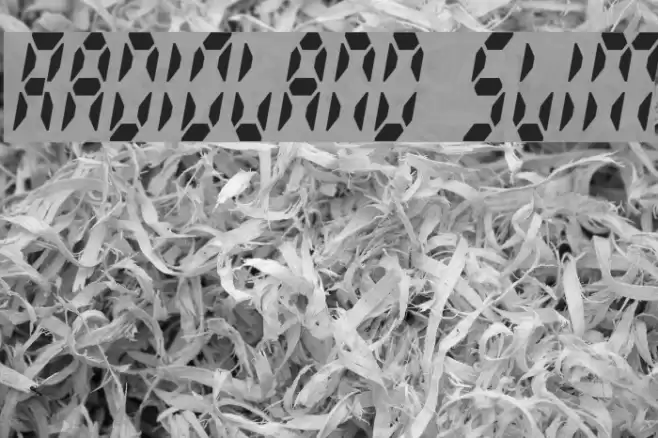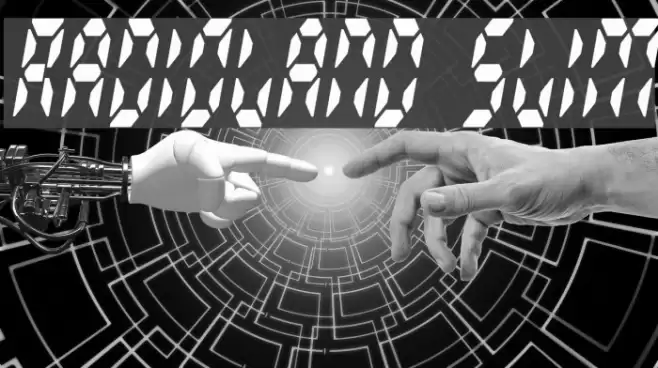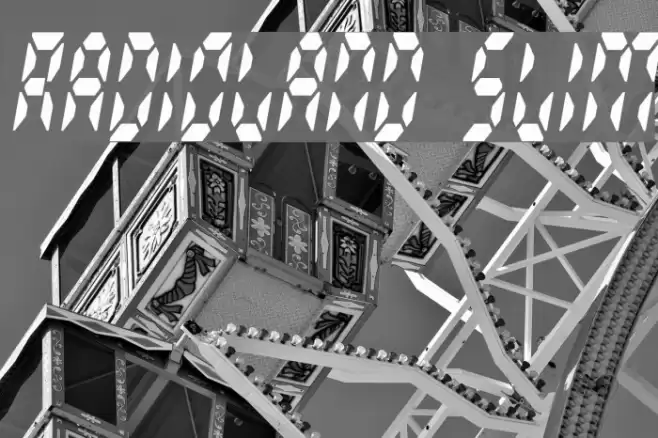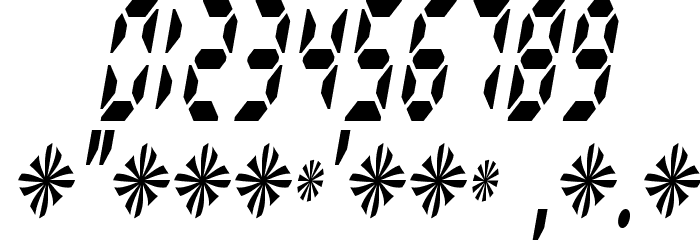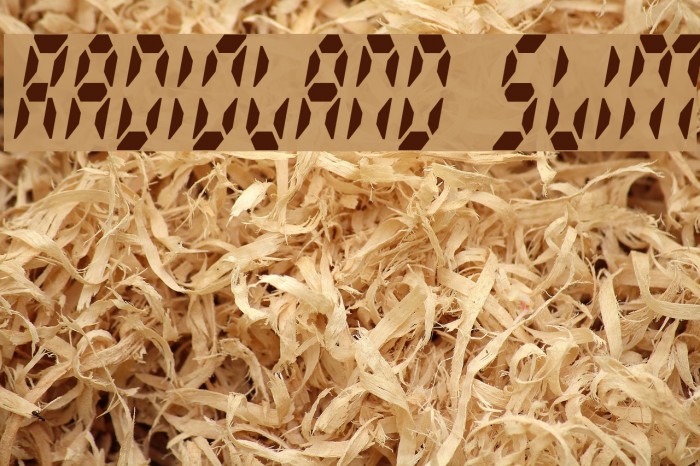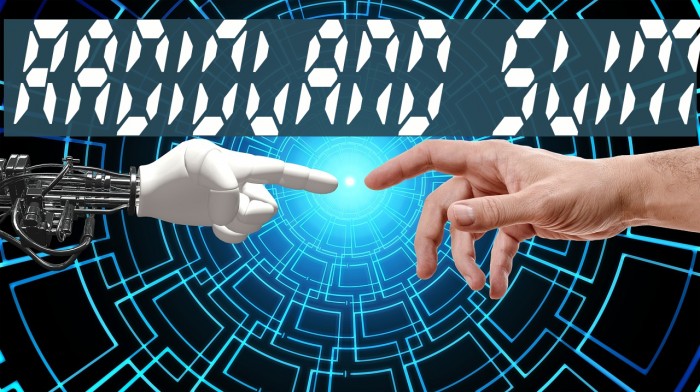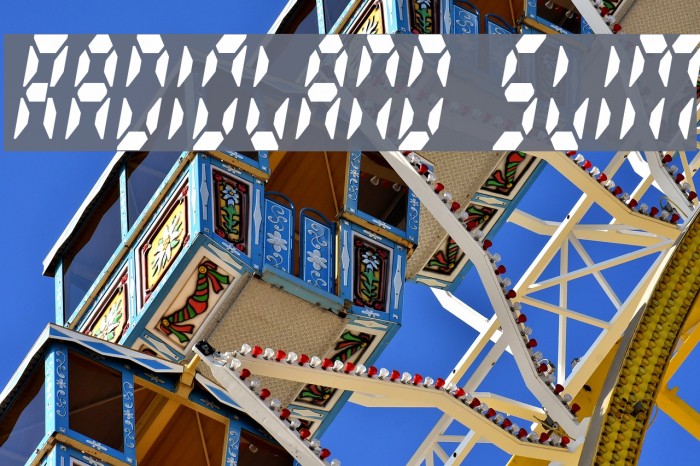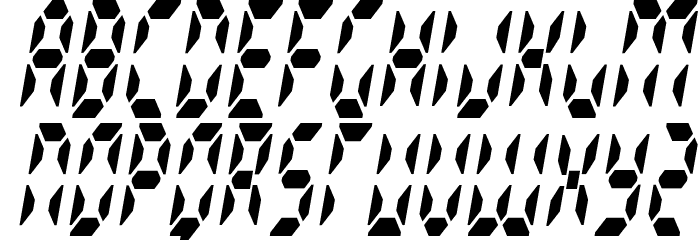
Radioland Slim Font
Radioland Slim Description
This font features a unique, geometric design with a futuristic and digital aesthetic. Each character is composed of angular, block-like shapes that create a sense of movement and modernity. The style is reminiscent of digital displays or pixel art, with a bold and striking appearance. The characters are uniformly spaced, providing a consistent and cohesive look across the entire set. The font includes both uppercase and lowercase letters, numbers, and a selection of special characters, all maintaining the same distinctive style. The boldness of the design makes it ideal for attention-grabbing headlines or creative projects that require a modern and edgy feel.
A bold, geometric font with a futuristic, digital aesthetic from Pixel fonts.
- Proposed Projects: Ideal for digital art, tech branding, futuristic posters, and modern advertising.